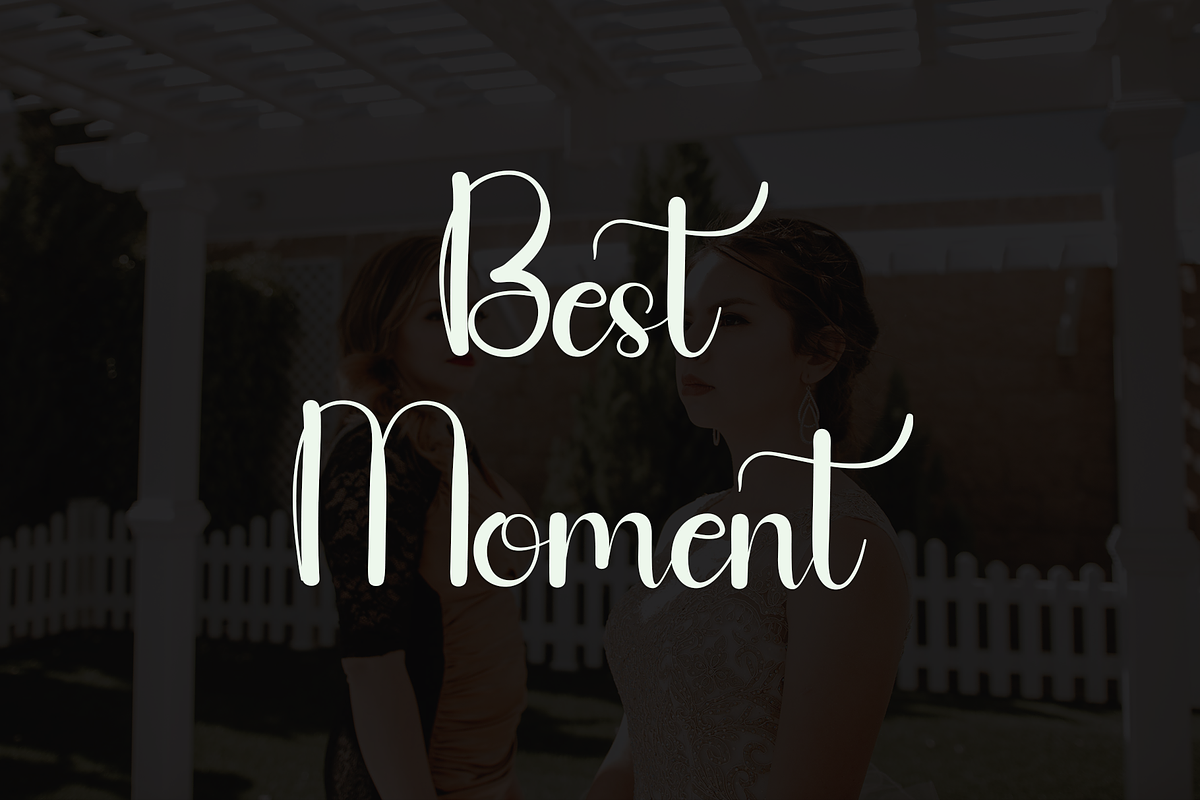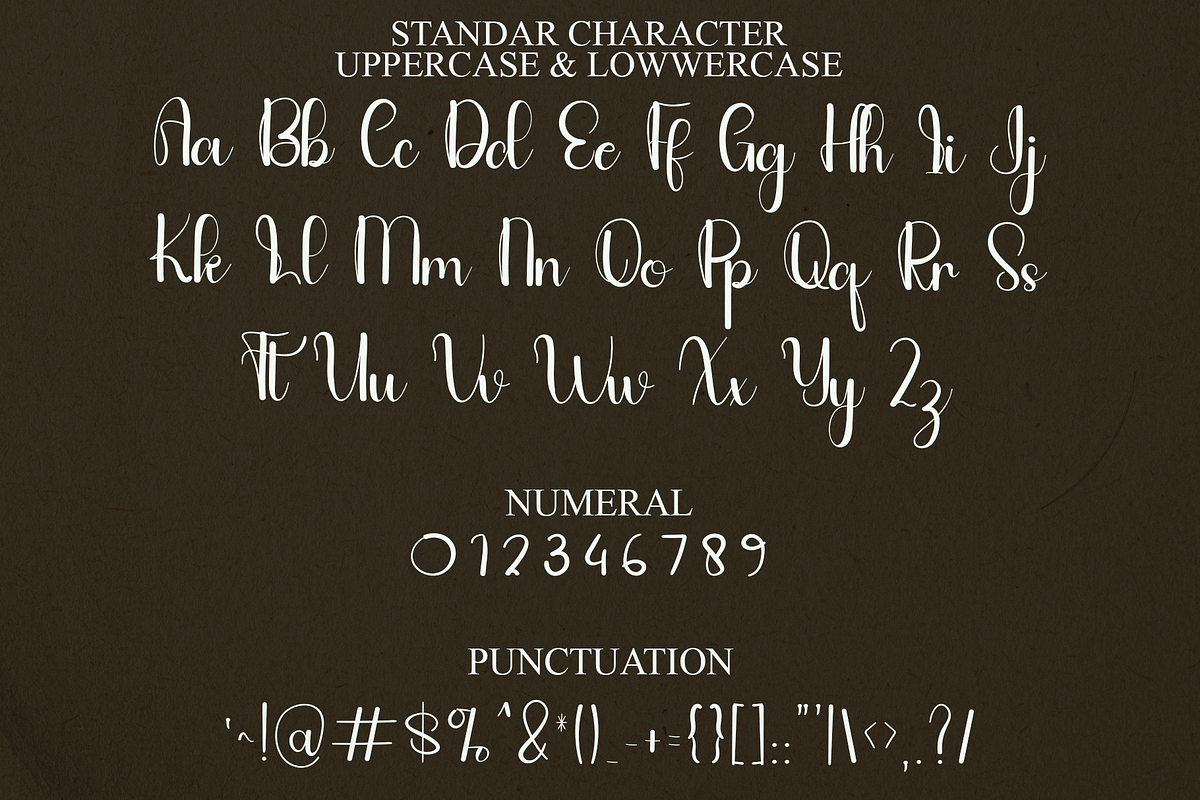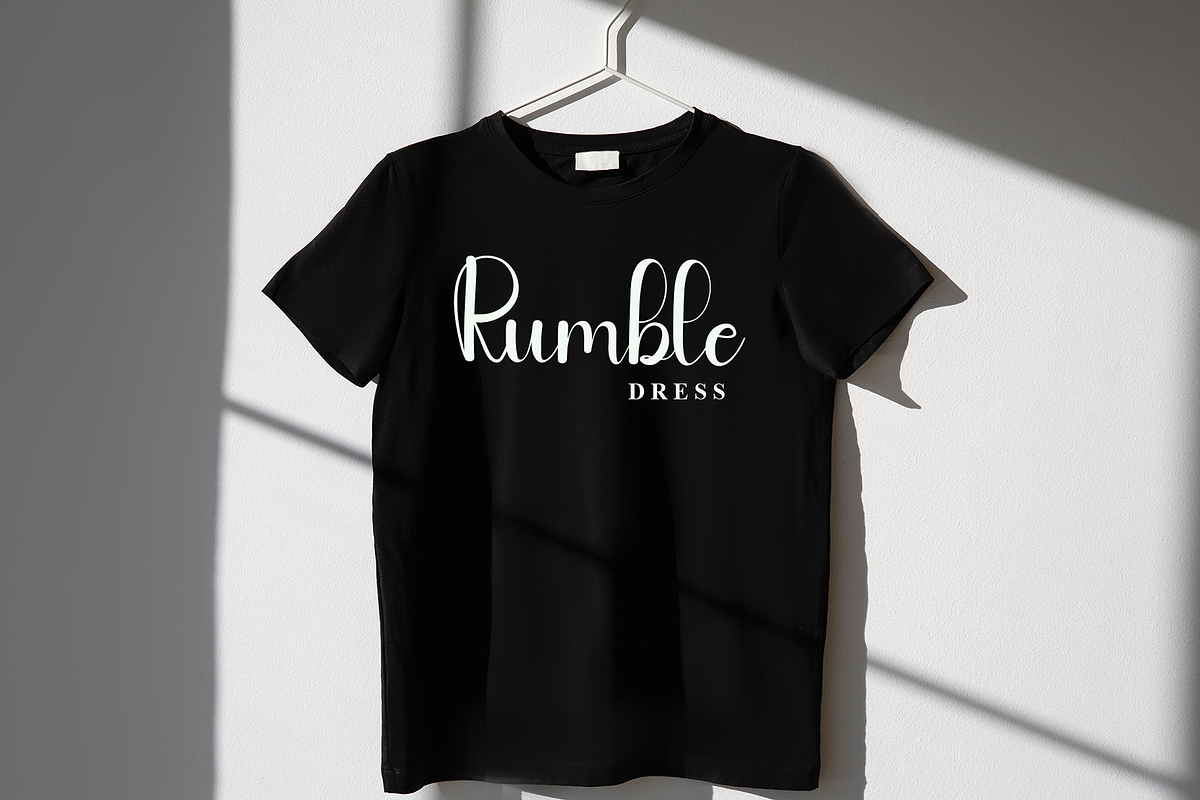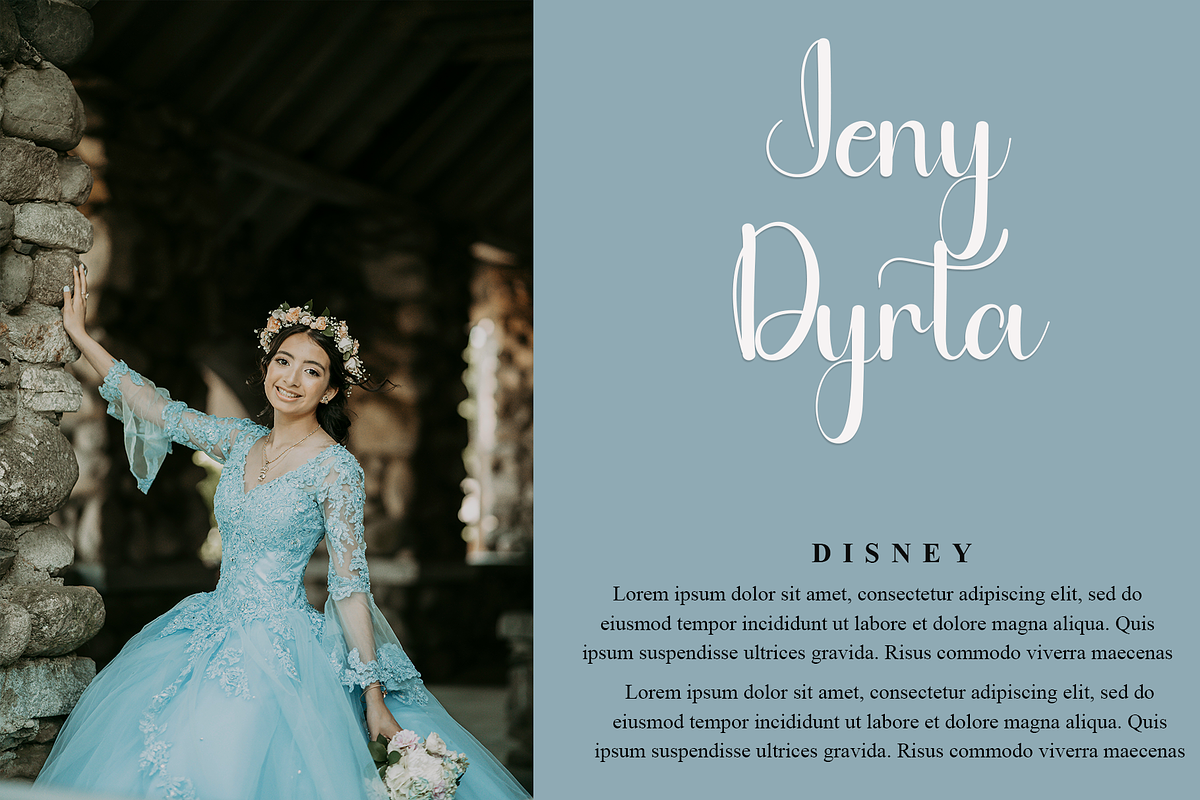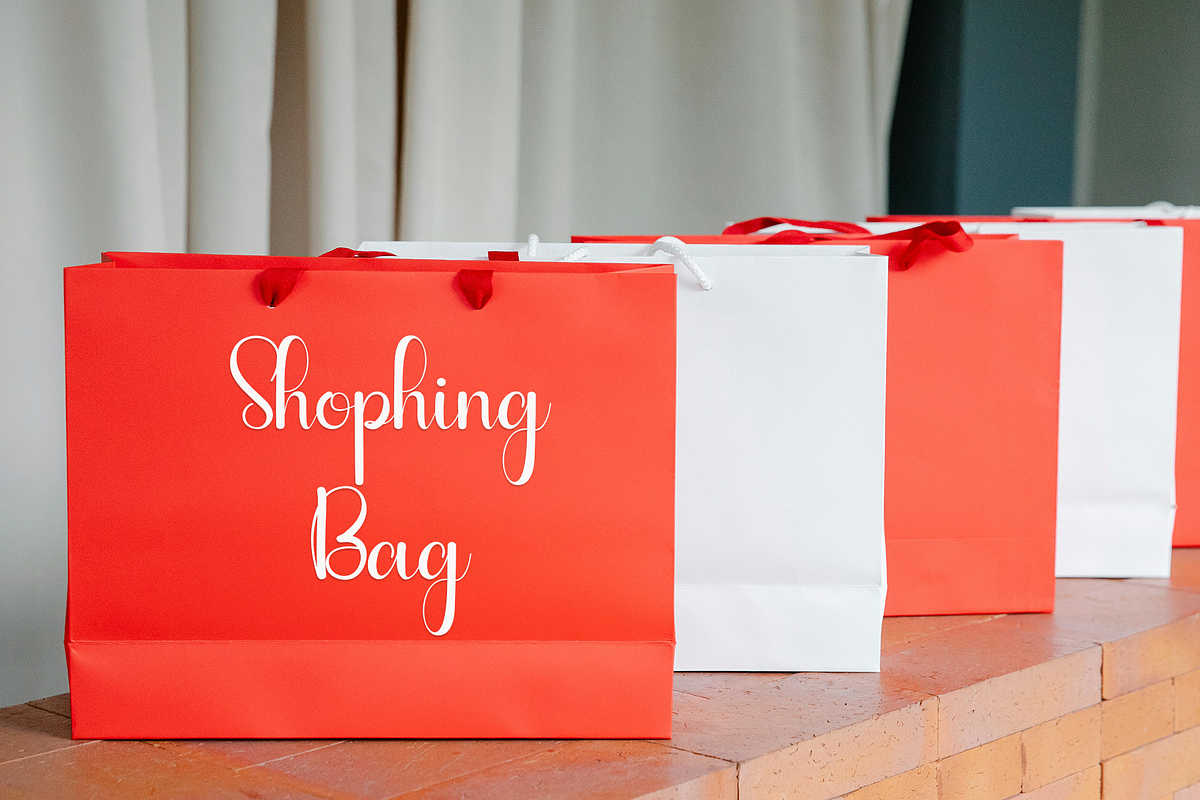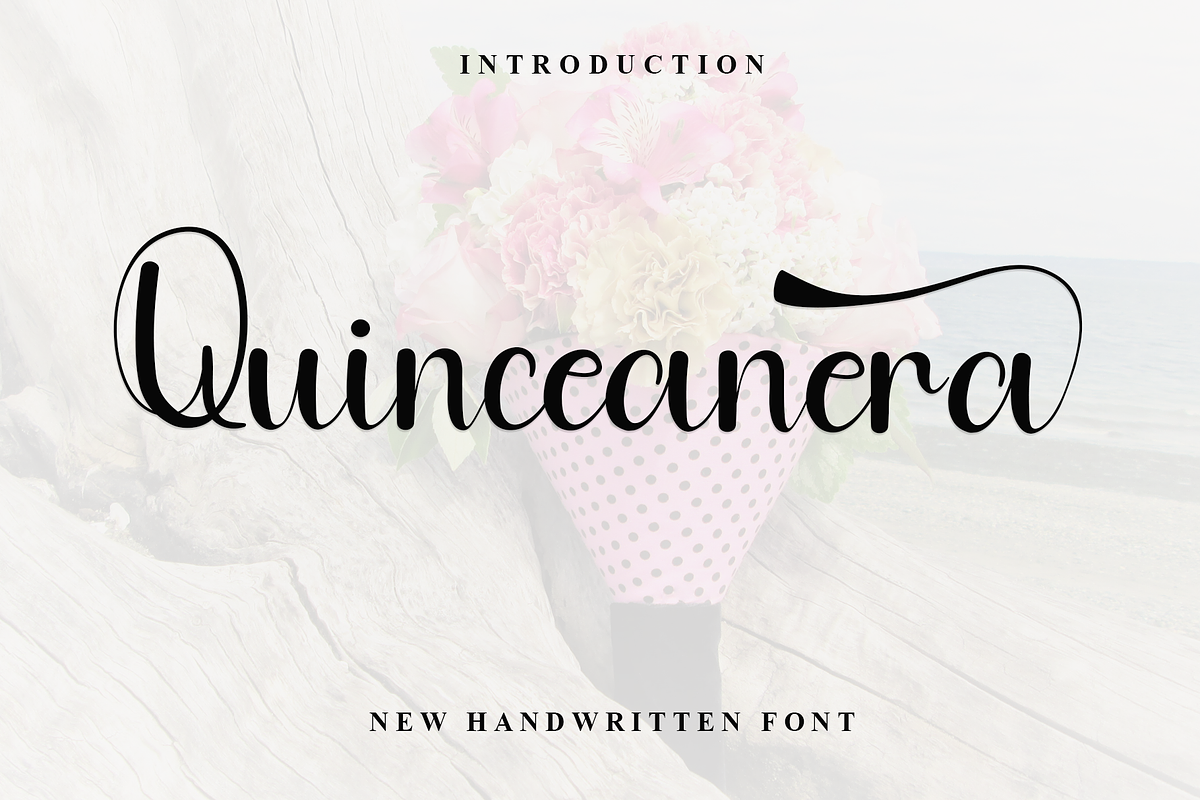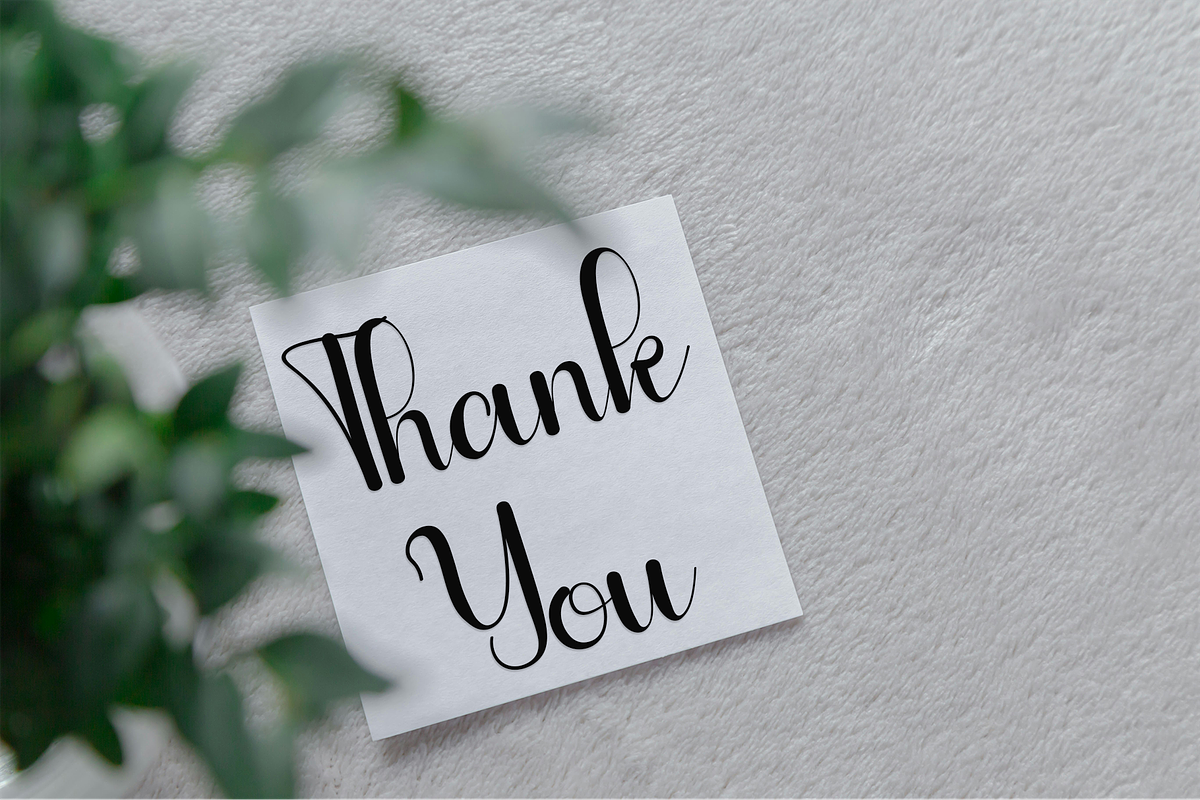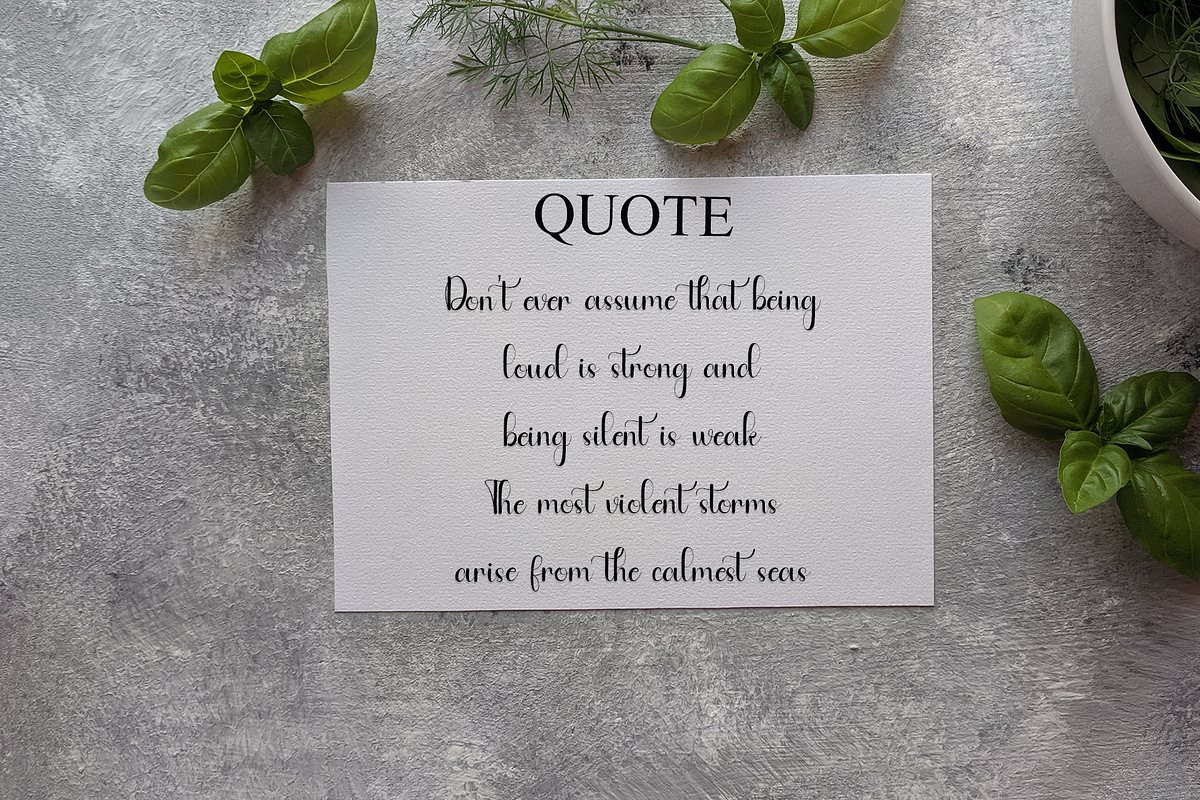
Quinceanere
Quinceanere is a beautiful and eye-catching font designed with a soft, unique touch. Its distinctive strokes give it a special character, making it meaningful and versatile for future use. With various characters, it’s perfect for design projects, crafts, and other creative works.